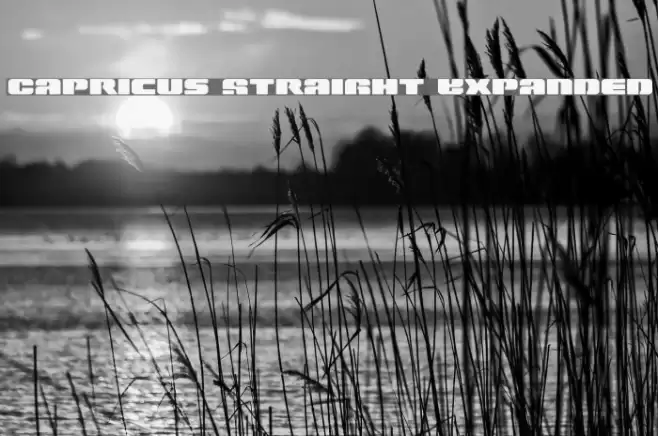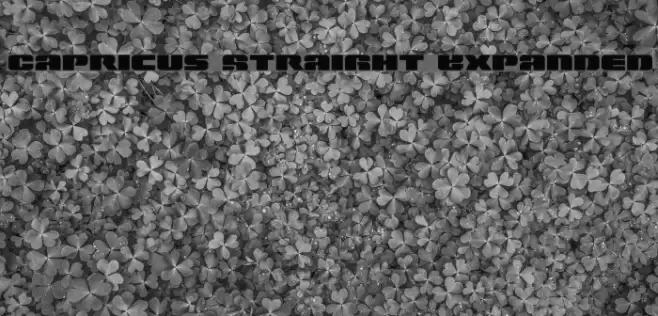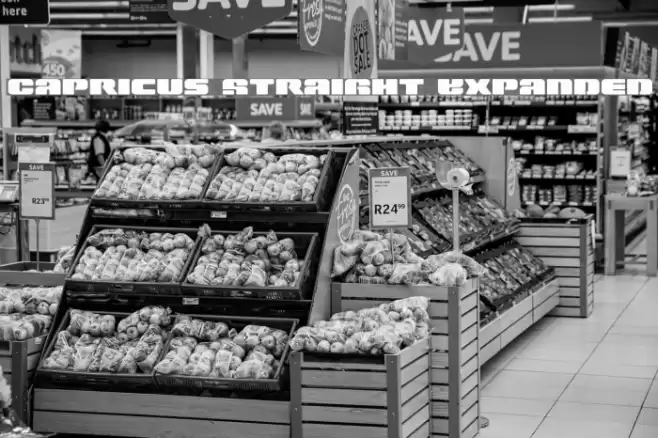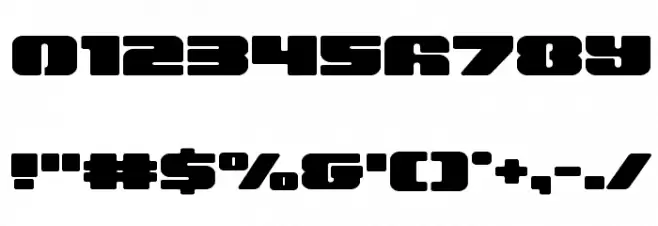
Capricus Straight Expanded Font
Capricus Straight Expanded Description
This font features a bold and expanded style with a futuristic and geometric design. The characters are constructed with thick, block-like shapes, creating a strong visual impact. The straight lines and sharp angles give it a modern and industrial feel. The uppercase and lowercase letters maintain a consistent width, enhancing the uniformity of the typeface. The numerals and special characters follow the same design principles, ensuring cohesion across all elements. This font is ideal for projects that require a bold statement and a contemporary aesthetic.
A bold, expanded font with a futuristic and geometric design from Uncategorized fonts.
- Proposed Projects: Ideal for branding, posters, headlines, and any design needing a strong, modern impact.